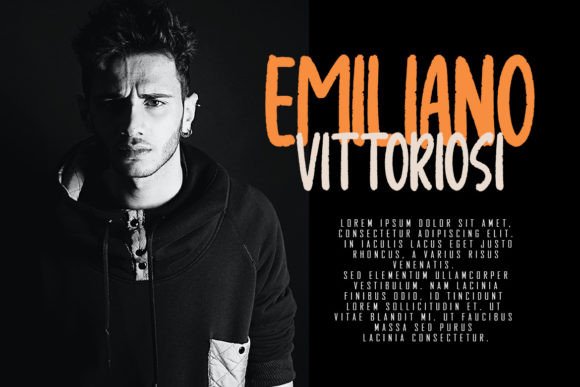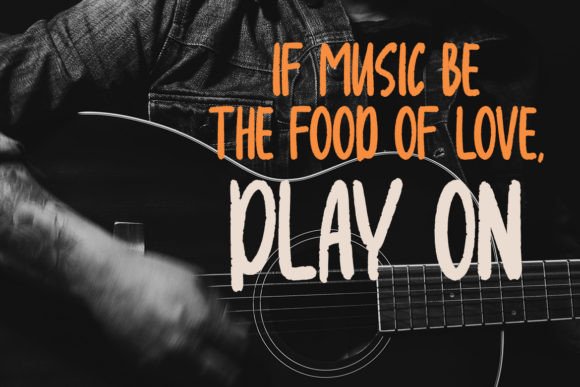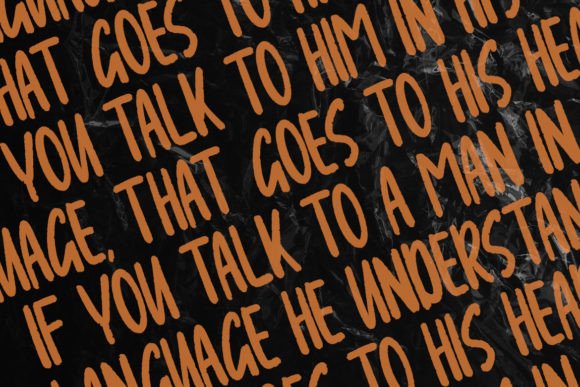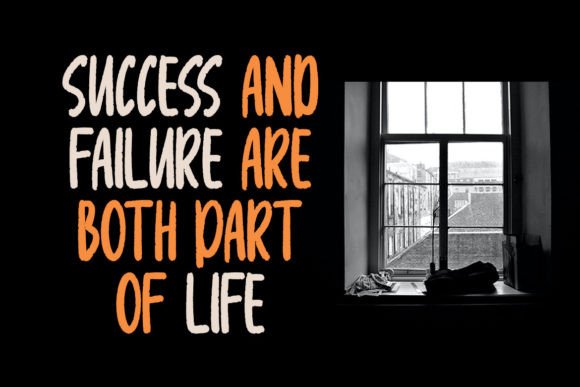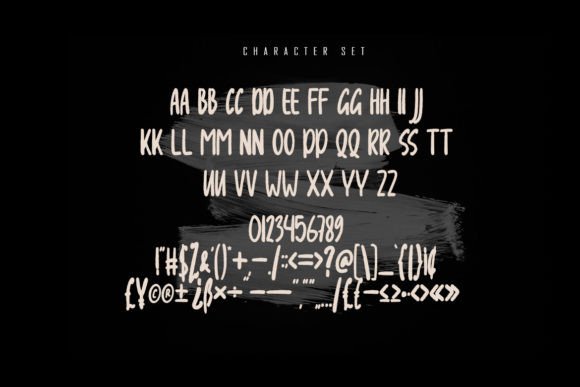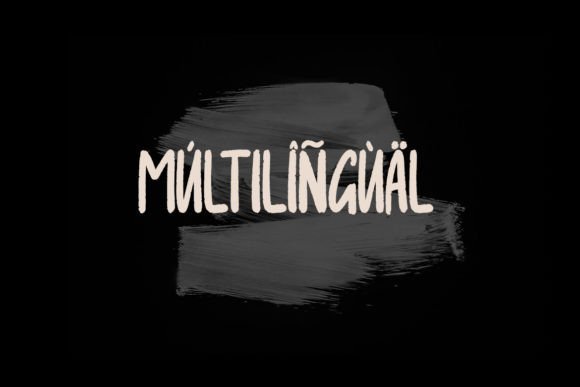
Introduction to Operashi Font
Remember the thrill of brainstorming a creative project and envisioning the perfect visual identity for your business? For designers, it’s that moment when the perfect font can elevate an entire concept. For those seeking a high-quality, authentic look, the Operashi Font is an exciting discovery. This textured brush handwritten font boasts a unique texture, reminiscent of original strokes, making it perfect for film or commercial needs.
What sets Operashi apart is its ability to add a touch of human imperfection to your design. The paint scratches and organic feel of this font create a sense of depth and authenticity, making it an ideal design resource for creative projects. Whether you’re working on a commercial or a personal project, the Operashi Font is a valuable addition to your design toolkit. And the best part? It’s available for free download, complete with a transparent background for seamless integration into your design.
Key Features of Operashi Font
- High-quality font design suitable for creative projects, offering a unique aesthetic.
- Includes a range of characters and glyphs, making it suitable for a variety of creative projects.
Honest Review: Operashi Font
What works well: ✨ The Operashi Font has a unique, modern aesthetic that’s perfect for a wide range of creative projects. The transparent background is a huge plus, making it easy to overlay text on images or other design elements. The font is also highly customizable, allowing me to fine-tune the look and feel to suit my project’s needs.
- Unique, modern aesthetic
Limitations: ⚠️ While the Operashi Font is a great resource, I did find it to be a bit limited in terms of its flexibility. The font is only available in a few weights, which can make it difficult to achieve a consistent look across different elements of a design.
Overall impression: I’m thoroughly impressed with the Operashi Font, and I think it’s a fantastic addition to any designer’s toolkit. While it may have some limitations, its unique aesthetic and high-quality design make it a must-have resource for any creative project.
Tips for Getting the Most Out of Operashi Font
Experiment with different font sizes and styles to achieve the desired effect. The Operashi Font’s versatility makes it suitable for a wide range of design projects.
The Operashi Font is ideal for logo designs, business cards, and other marketing materials. Its high-quality design and transparent background make it a valuable design resource for any project.